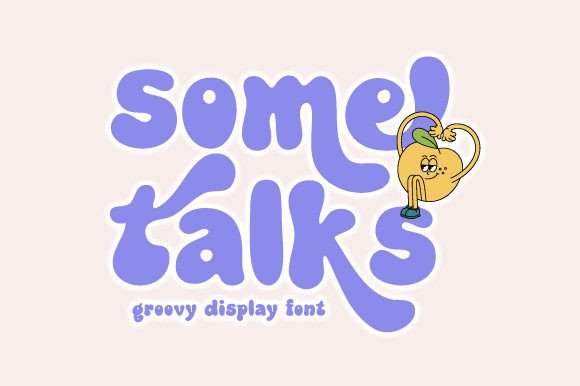
Are you looking for the perfect font to elevate your food truck brand and attract customers with your menu? Look no further than Some Talks Font - the best font for food truck branding! Created by Prioritype, Some Talks Font is a fun and groovy display font that is perfect for adding a playful touch to your designs.
With its funky and stylish appearance, Some Talks Font is incredibly versatile and can be used for a large variety of projects. Whether you're creating a menu for your food truck, designing a logo, or working on marketing materials, Some Talks Font will add a unique and eye-catching element to your designs.
This font family is perfect for foodies who want to add a little personality and charm to their brand. Some Talks Font is full of personality, making it perfect for food truck owners who want to stand out from the crowd. Its captivating curves and unique features are sure to draw attention to your brand and help your food truck become the talk of the town.
So, why wait? Download Some Talks Font today and add some fun to your designs! Whether you're a food truck owner, a marketer, or a designer, Some Talks Font is the perfect addition to your toolbox. With its unique features, captivating curves, and playful personality, Some Talks Font is sure to elevate your designs and help you stand out from the crowd.